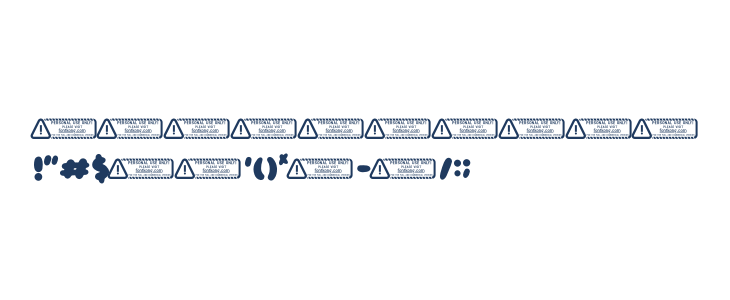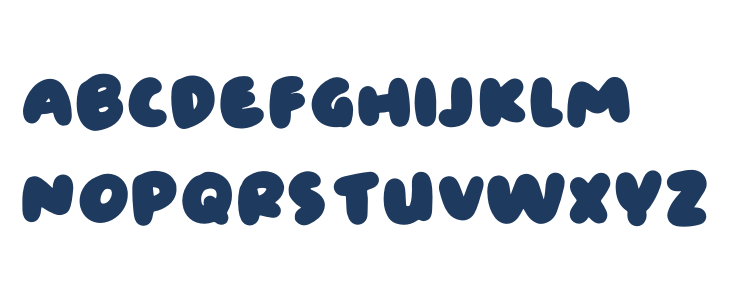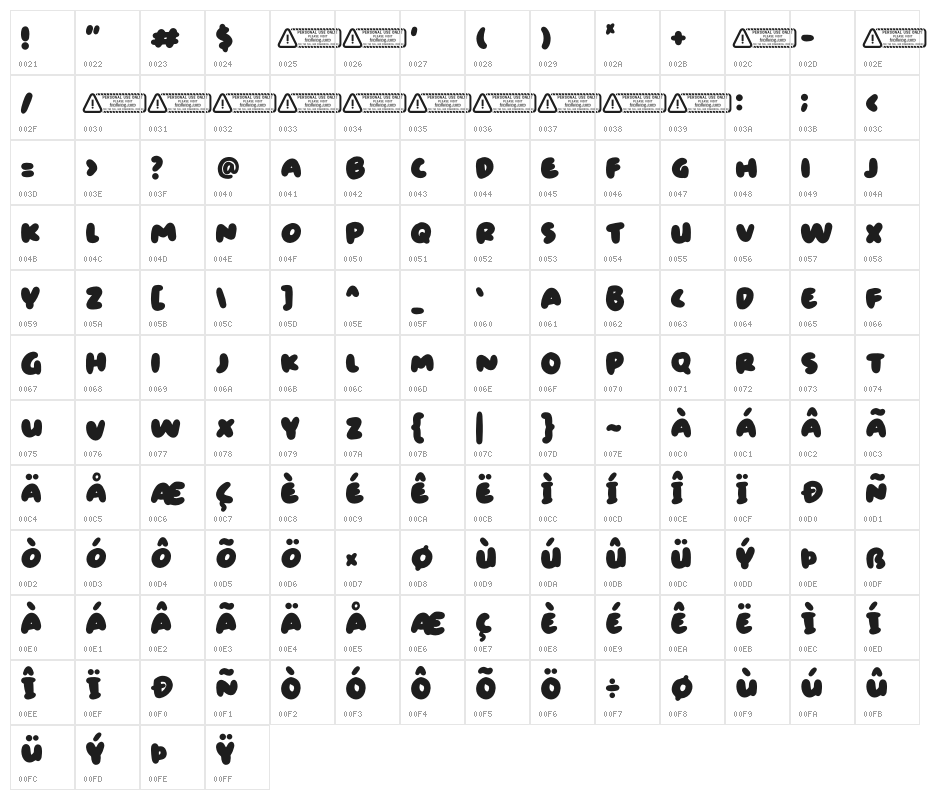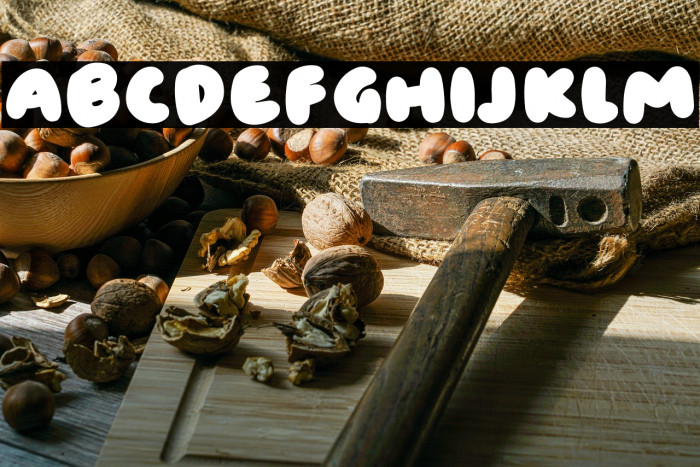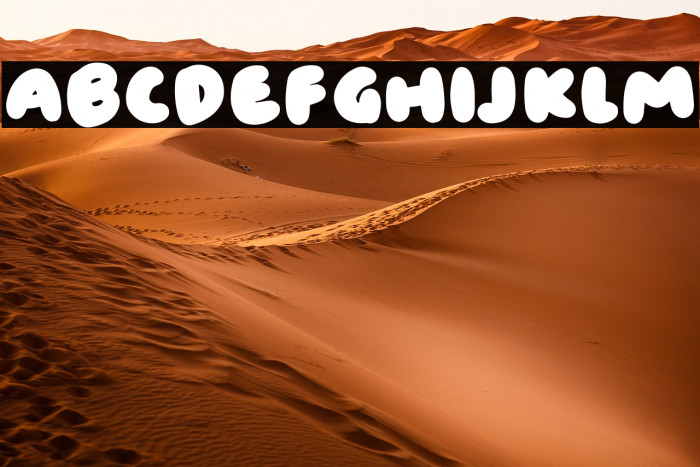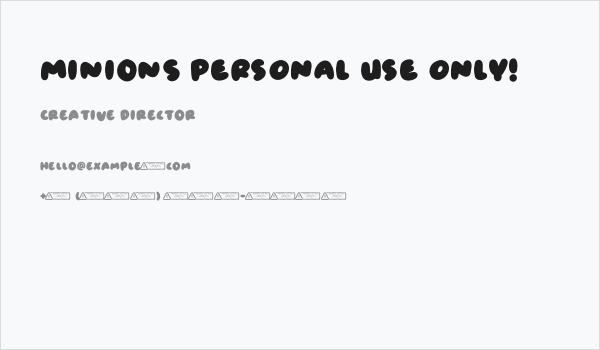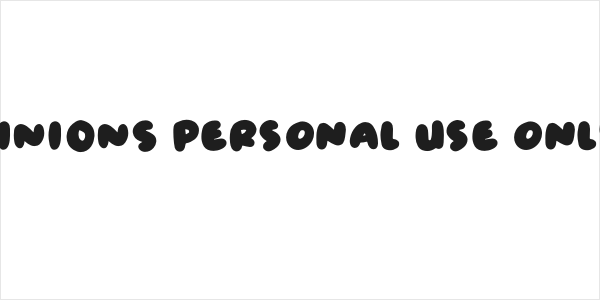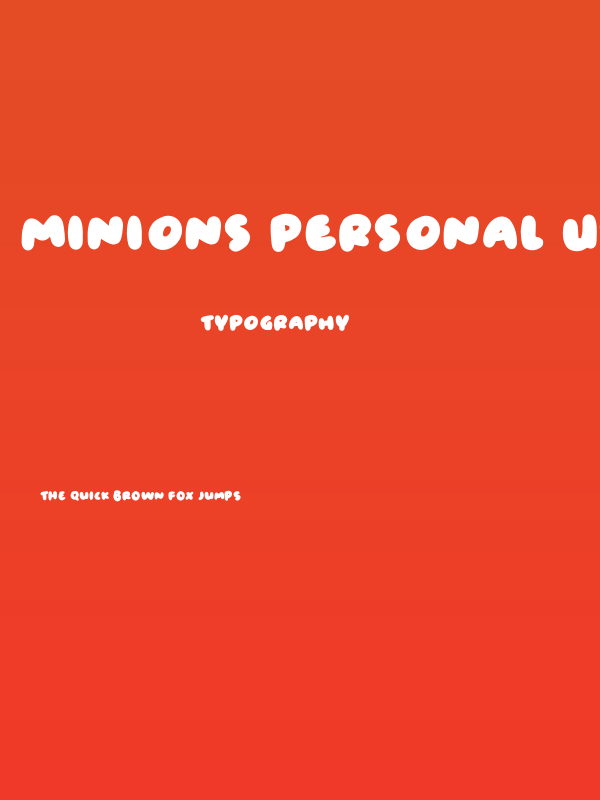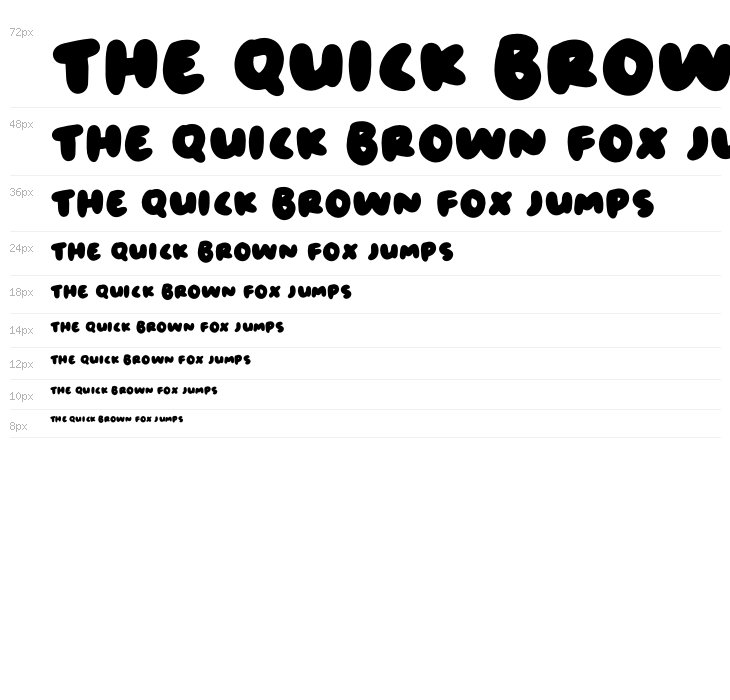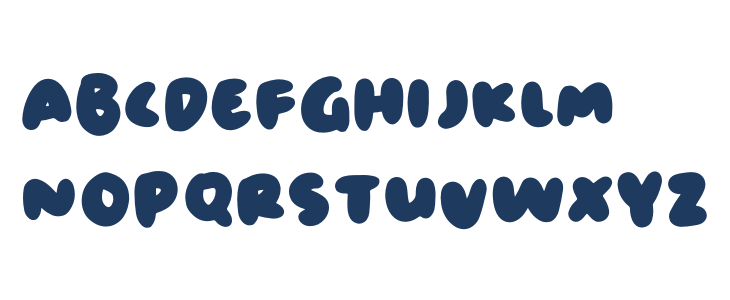
Minions PERSONAL USE ONLY! Font
Minions PERSONAL USE ONLY! Description
A bold, rounded, playful sans-serif font with thick strokes and smooth edges, designed for a fun and informal appearance.
| Overall Style | Playful, Informal, Fun |
| Use Case | Headlines, Logos, Children's content |
| Proposed Projects | Children's books, cartoons, posters, logos, and playful branding. |